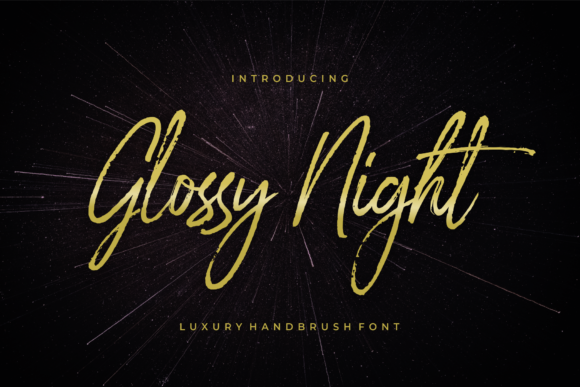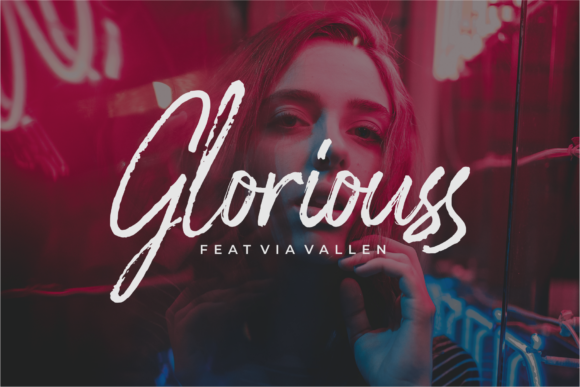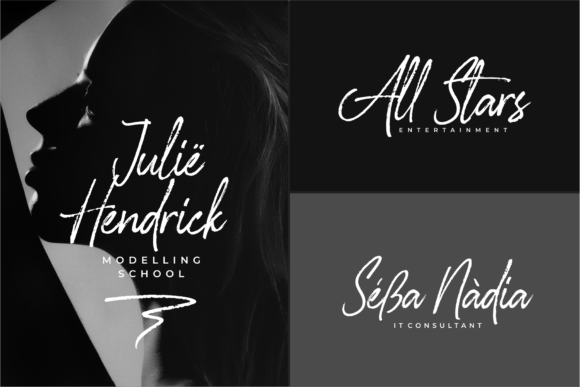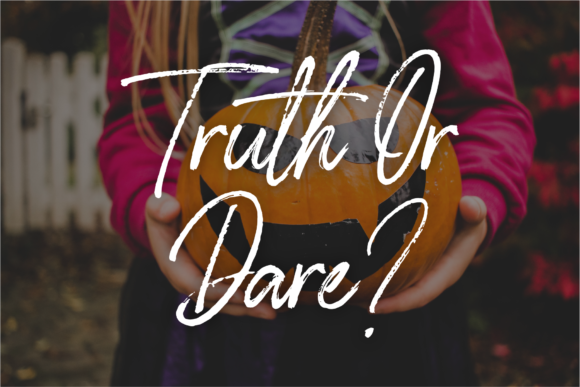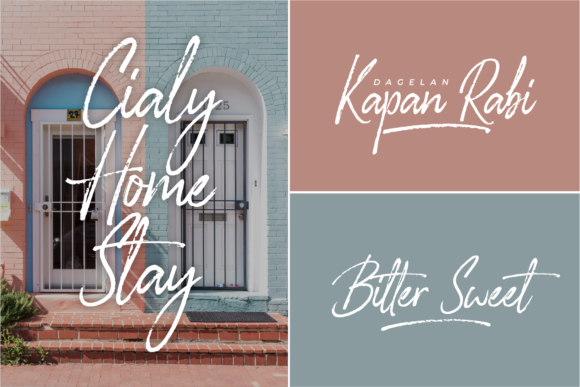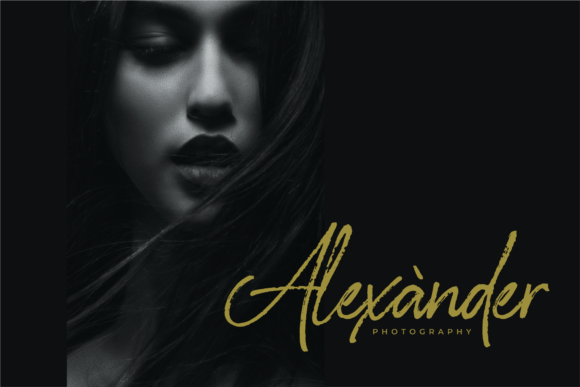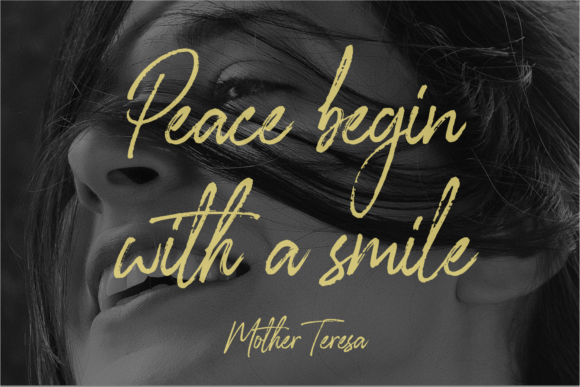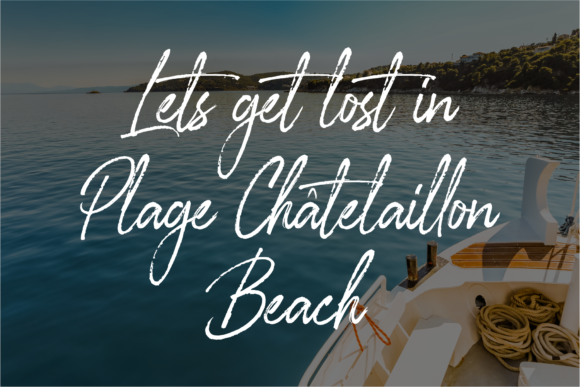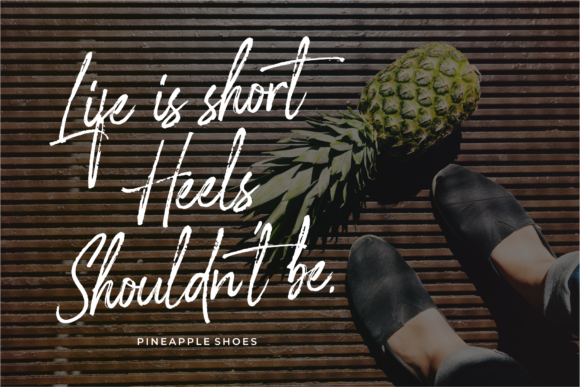
Glossy Night Font
About Glossy Night Font
Glossy Night is an elegant and smooth handwritten font with a unique style. Use it to turn any design project into a true standout!